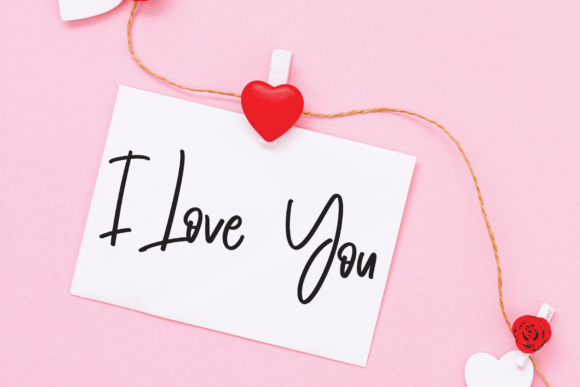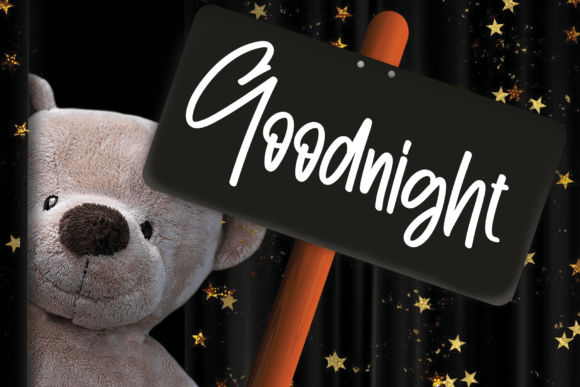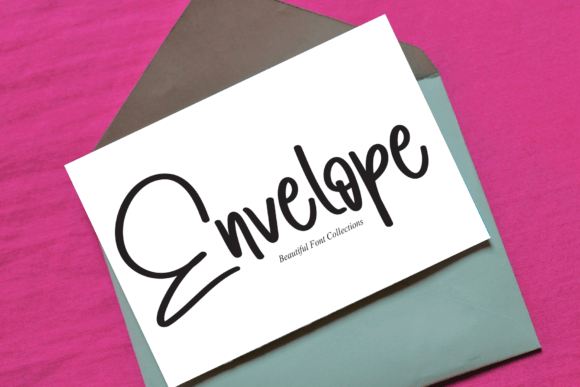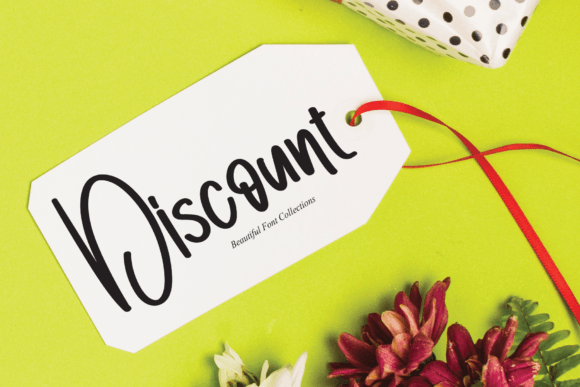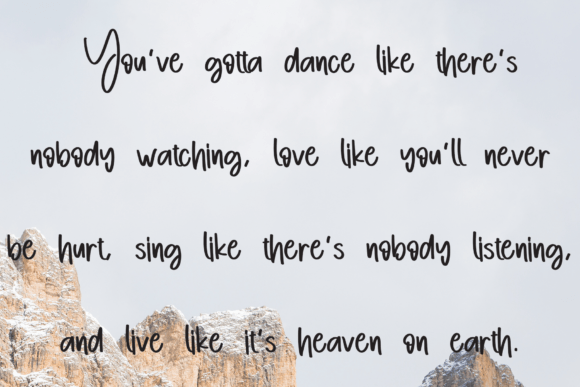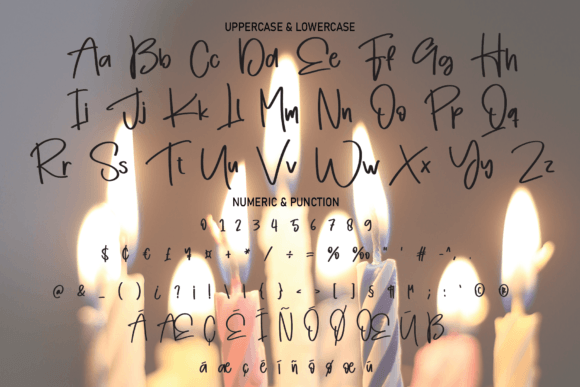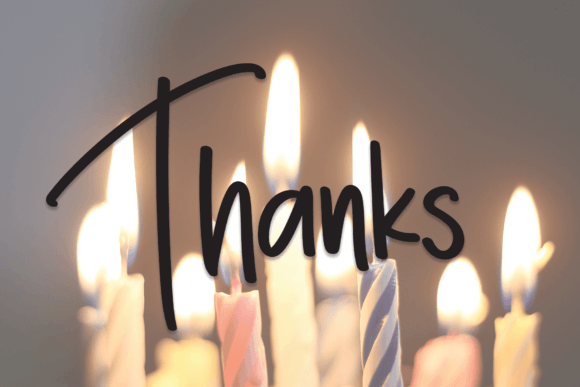
Birthday Font
About Birthday Font
Birthday is a delightful handwritten font designed to provide you with an extraordinary and unique experience. Its charming and personal touch makes it a perfect choice for a wide range of design projects. This versatile font is ideal for wall displays, wedding invitations, social media posts, logos, advertisements, product packaging, product designs, labels, photography, watermarks, invitations, stationery, and any project that benefits from a handwritten style.
One of the key features of Birthday is its ability to add a warm and personal feel to your designs. Its handwritten appearance creates a genuine and heartfelt connection with the audience, making your projects more engaging and relatable. Whether you’re designing personalized invitations for a special event, creating eye-catching social media posts, or developing a unique brand identity, Birthday enhances the overall aesthetic with its friendly and approachable handwritten touch.
The font’s versatility allows it to adapt seamlessly to various design contexts. Its natural and organic letterforms add authenticity to your projects, making them visually appealing and captivating. By incorporating Birthday into your designs, you infuse them with a sense of character and individuality, making your content stand out in a crowded digital landscape.
Incorporating Birthday into your creative projects not only adds a handwritten touch but also communicates your dedication to creating authentic and meaningful designs. Its versatility makes it suitable for both formal and informal applications, giving you the freedom to experiment and create visually stunning compositions. By choosing Birthday, you’re selecting a font that elevates your designs and brings a touch of personality to your creative endeavors.
So, whether you’re designing personalized invitations, crafting social media content with a personal touch, developing a distinctive brand identity, or working on any other creative project, let Birthday be your font of choice. Its handwritten charm enhances your designs, making them more relatable and appealing to your audience. Embrace the authenticity of Birthday and watch your projects come to life with a genuine and heartfelt vibe.